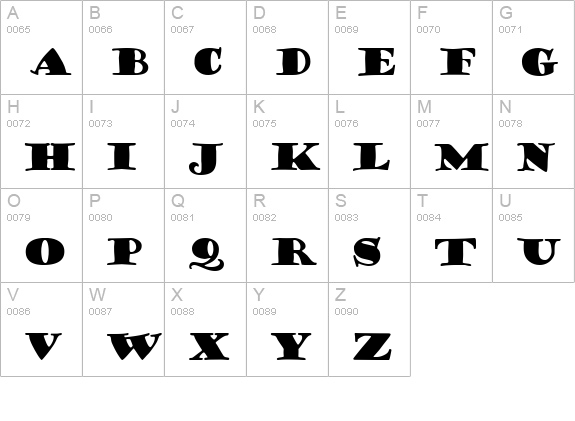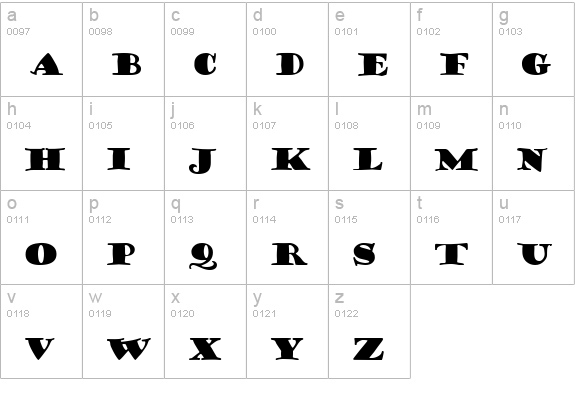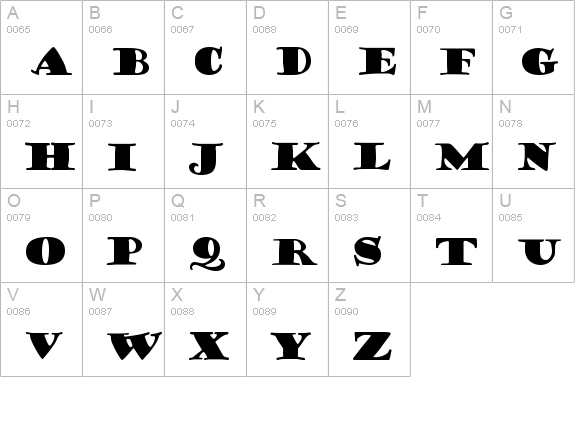
CoffeeSack Normal is the standard, neutral variant in the CoffeeSack typeface family \xE2\x80\x94 well suited to general body text, paragraphs, and standard typographic work.
CoffeeSack Normal font is a versatile and stylish typeface that exudes a sense of warmth and charm. Its classic design is perfect for a wide range of projects, from branding and packaging to invitations and posters. The elegant curves and clean lines of this font make it a great choice for adding a touch of sophistication to your designs. What sets CoffeeSack Normal font apart is that it is not only visually appealing but also completely free to download. Yes, you read that right - you can freely access this beautiful font at FontsMarket.com. Whether you're a professional designer looking for a new addition to your font collection or a hobbyist wanting to spruce up your personal projects, CoffeeSack Normal font is the perfect choice. Download it today and elevate your designs with this stunning typeface.